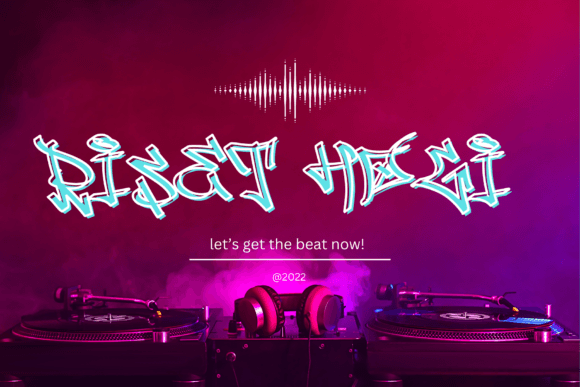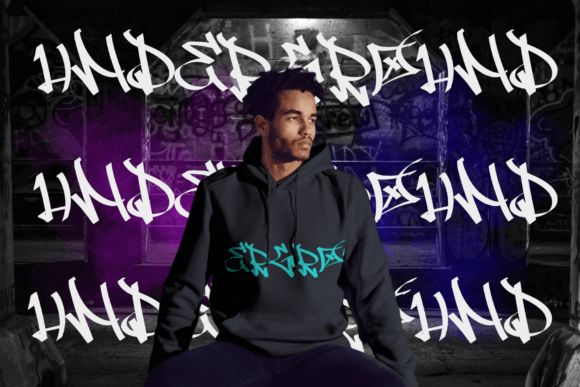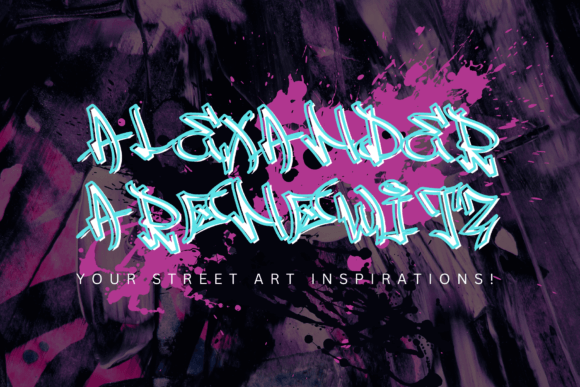
Introduction to Grafincy Font
Grafincy is a graffiti street-style font that looks marvelous and is perfect for any street-style creation.
Grafincy is perfect for branding projects, logos, social media posts, advertisements, product packaging, product designs, labels, and more .
Grafincy Font offers exceptional quality and versatility, making it a valuable addition to your design toolkit. Whether you’re creating for personal projects or commercial use, Grafincy Font delivers professional results.